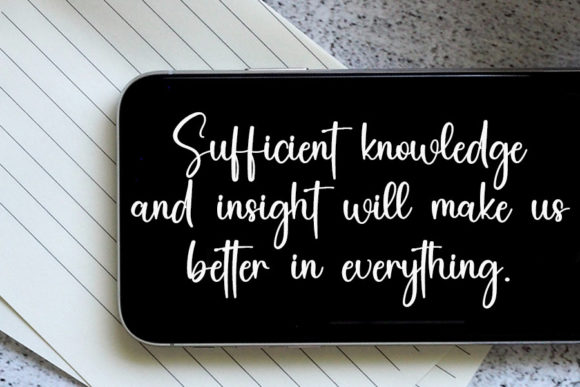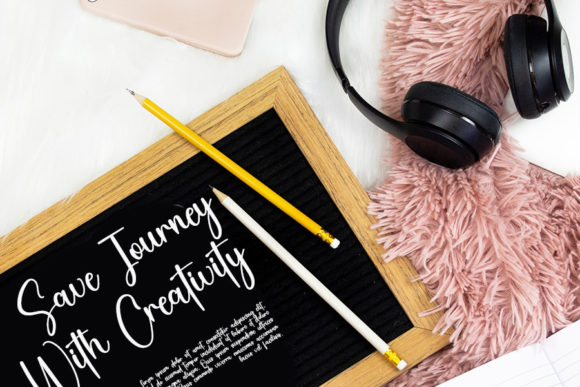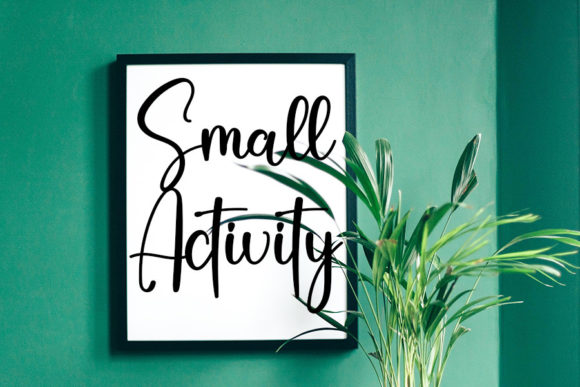
About Journalistic Font
Introducing Journalistic, a stylish handwritten font that effortlessly marries a contemporary atmosphere with impeccable form, drawing inspiration from the enduring charm of timeless classic calligraphy. This font is a curated fusion of sophistication and modernity, presenting balanced and varied letterforms meticulously crafted to elevate the beauty of your projects.
Journalistic’s handwritten style introduces a personalized and authentic touch to your designs. Each letter is thoughtfully shaped to maintain an elegant form, making this font an ideal choice for a diverse array of creative applications. Whether you’re working on invitations, branding materials, or any project that demands a stylish and refined aesthetic, Journalistic is tailored to enhance visual appeal.
The contemporary atmosphere of Journalistic allows it to seamlessly adapt to various design contexts. Its balanced and varied letterforms contribute to a dynamic yet cohesive look, ensuring that your projects stand out with sophistication. This font becomes a timeless option, transcending trends and infusing a touch of class into your creative endeavors.
Immerse your projects in the inspired elegance of Journalistic, and witness how its impeccable form enhances overall beauty. Whether you’re creating promotional content, branding materials, or any design requiring a stylish handwritten feel, Journalistic is your trusted font for achieving the perfect marriage of classic and modern aesthetics.
In summary, Journalistic is more than just a font; it’s a design companion that brings a timeless and stylish essence to your projects. With its contemporary atmosphere, impeccable form, and inspiration drawn from classic calligraphy, Journalistic stands as a versatile and sophisticated choice for designers seeking to elevate the beauty of their creations.